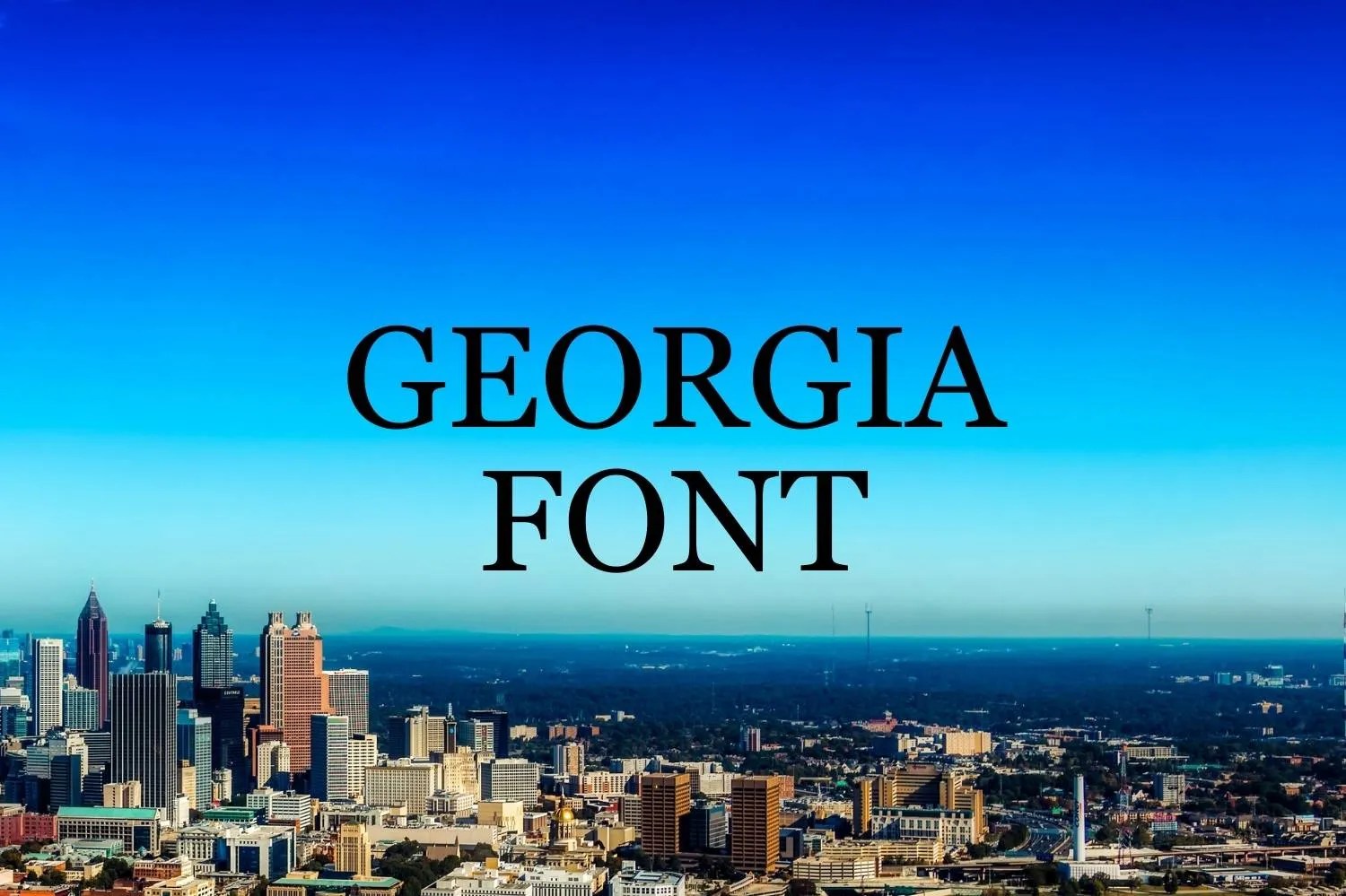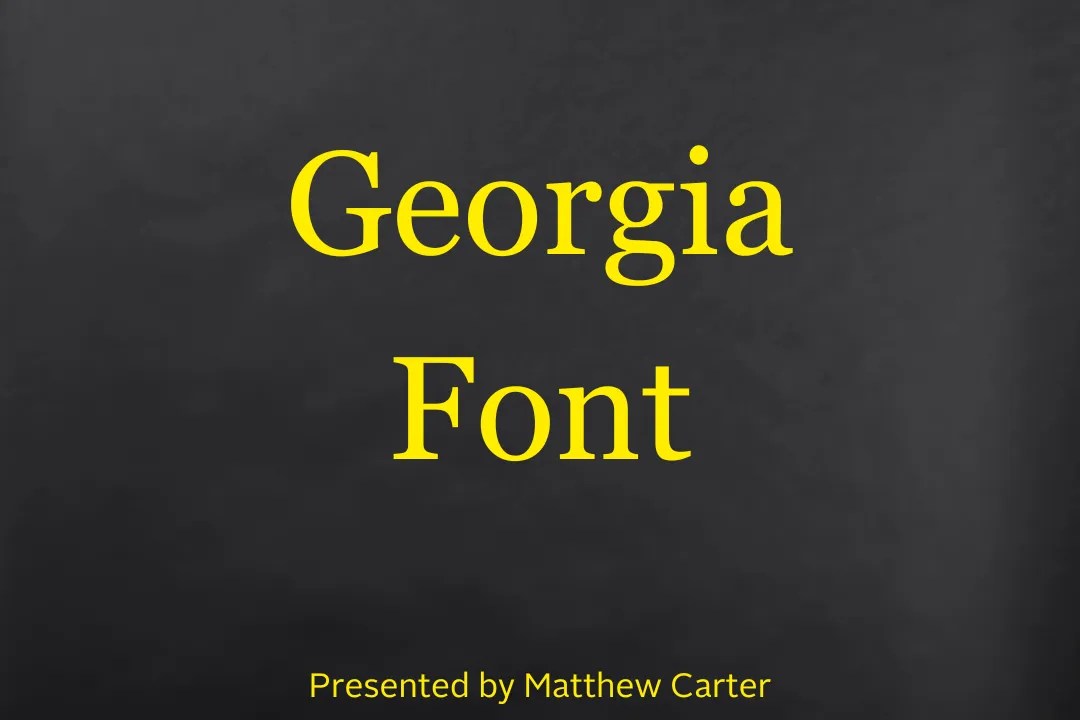
Georgia Font Meaning . Georgia is a serif typeface designed in 1993 by matthew carter and hinted by thomas rickner for microsoft. The georgia typeface is similar to times new roman, another revival of transitional serif designs, but with many subtle differences:. Four basic styles, designed by matthew carter and hinted by tom rickner in 1993, were released by microsoft in 1996 as part of the core fonts for the web collection. It was intended as a serif. It was made to be legible when printed at small sizes or on a. Georgia has strokes that are both thick and thin, alternating. They often exude a sense of reliability, elegance, and authority. Serif fonts, such as times new roman or georgia, are known for their classic and traditional appeal. Georgia was designed by matthew carter for microsoft back in 1993.
Serif fonts, such as times new roman or georgia, are known for their classic and traditional appeal. The georgia typeface is similar to times new roman, another revival of transitional serif designs, but with many subtle differences:. It was intended as a serif. Four basic styles, designed by matthew carter and hinted by tom rickner in 1993, were released by microsoft in 1996 as part of the core fonts for the web collection. It was made to be legible when printed at small sizes or on a. They often exude a sense of reliability, elegance, and authority. Georgia was designed by matthew carter for microsoft back in 1993. Georgia has strokes that are both thick and thin, alternating. Georgia is a serif typeface designed in 1993 by matthew carter and hinted by thomas rickner for microsoft.
Georgia Font Meaning Serif fonts, such as times new roman or georgia, are known for their classic and traditional appeal. It was intended as a serif. They often exude a sense of reliability, elegance, and authority. Georgia is a serif typeface designed in 1993 by matthew carter and hinted by thomas rickner for microsoft. Serif fonts, such as times new roman or georgia, are known for their classic and traditional appeal. The georgia typeface is similar to times new roman, another revival of transitional serif designs, but with many subtle differences:. Four basic styles, designed by matthew carter and hinted by tom rickner in 1993, were released by microsoft in 1996 as part of the core fonts for the web collection. Georgia was designed by matthew carter for microsoft back in 1993. It was made to be legible when printed at small sizes or on a. Georgia has strokes that are both thick and thin, alternating.
Bold Download For Free, View Sample Text, Rating And More On Georgia Font Meaning They often exude a sense of reliability, elegance, and authority. Georgia has strokes that are both thick and thin, alternating. Four basic styles, designed by matthew carter and hinted by tom rickner in 1993, were released by microsoft in 1996 as part of the core fonts for the web collection. The georgia typeface is similar to times new roman, another. Georgia Font Meaning.
free font Georgia Font Meaning Georgia has strokes that are both thick and thin, alternating. Georgia was designed by matthew carter for microsoft back in 1993. Four basic styles, designed by matthew carter and hinted by tom rickner in 1993, were released by microsoft in 1996 as part of the core fonts for the web collection. Serif fonts, such as times new roman or georgia,. Georgia Font Meaning.
Font Alphabet Styles December 2011 Georgia Font Meaning It was made to be legible when printed at small sizes or on a. Georgia has strokes that are both thick and thin, alternating. Georgia is a serif typeface designed in 1993 by matthew carter and hinted by thomas rickner for microsoft. Georgia was designed by matthew carter for microsoft back in 1993. It was intended as a serif. Four. Georgia Font Meaning.
Script free font Georgia Font Meaning Georgia has strokes that are both thick and thin, alternating. Serif fonts, such as times new roman or georgia, are known for their classic and traditional appeal. Georgia is a serif typeface designed in 1993 by matthew carter and hinted by thomas rickner for microsoft. Four basic styles, designed by matthew carter and hinted by tom rickner in 1993, were. Georgia Font Meaning.
text design calligraphy Royalty Free Vector Image Georgia Font Meaning It was intended as a serif. Georgia is a serif typeface designed in 1993 by matthew carter and hinted by thomas rickner for microsoft. Georgia has strokes that are both thick and thin, alternating. It was made to be legible when printed at small sizes or on a. They often exude a sense of reliability, elegance, and authority. Four basic. Georgia Font Meaning.
Font Free Download Georgia Font Meaning Georgia has strokes that are both thick and thin, alternating. It was intended as a serif. It was made to be legible when printed at small sizes or on a. The georgia typeface is similar to times new roman, another revival of transitional serif designs, but with many subtle differences:. They often exude a sense of reliability, elegance, and authority.. Georgia Font Meaning.
University Relations and Marketing Oregon Georgia Font Meaning The georgia typeface is similar to times new roman, another revival of transitional serif designs, but with many subtle differences:. Serif fonts, such as times new roman or georgia, are known for their classic and traditional appeal. Georgia has strokes that are both thick and thin, alternating. They often exude a sense of reliability, elegance, and authority. Georgia is a. Georgia Font Meaning.
Font Family Download Free Fonts Georgia Font Meaning It was made to be legible when printed at small sizes or on a. Four basic styles, designed by matthew carter and hinted by tom rickner in 1993, were released by microsoft in 1996 as part of the core fonts for the web collection. They often exude a sense of reliability, elegance, and authority. Georgia is a serif typeface designed. Georgia Font Meaning.
Free extra bold font wholepok Georgia Font Meaning Serif fonts, such as times new roman or georgia, are known for their classic and traditional appeal. Georgia is a serif typeface designed in 1993 by matthew carter and hinted by thomas rickner for microsoft. The georgia typeface is similar to times new roman, another revival of transitional serif designs, but with many subtle differences:. Georgia has strokes that are. Georgia Font Meaning.